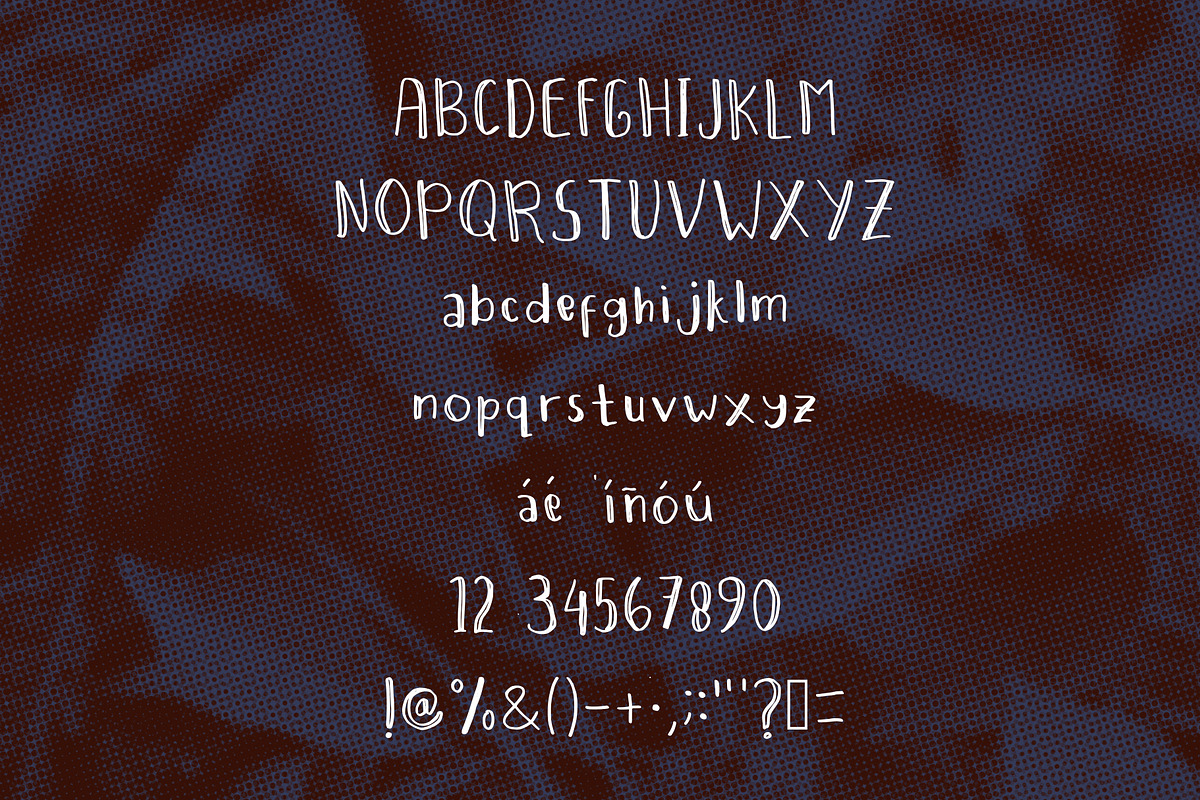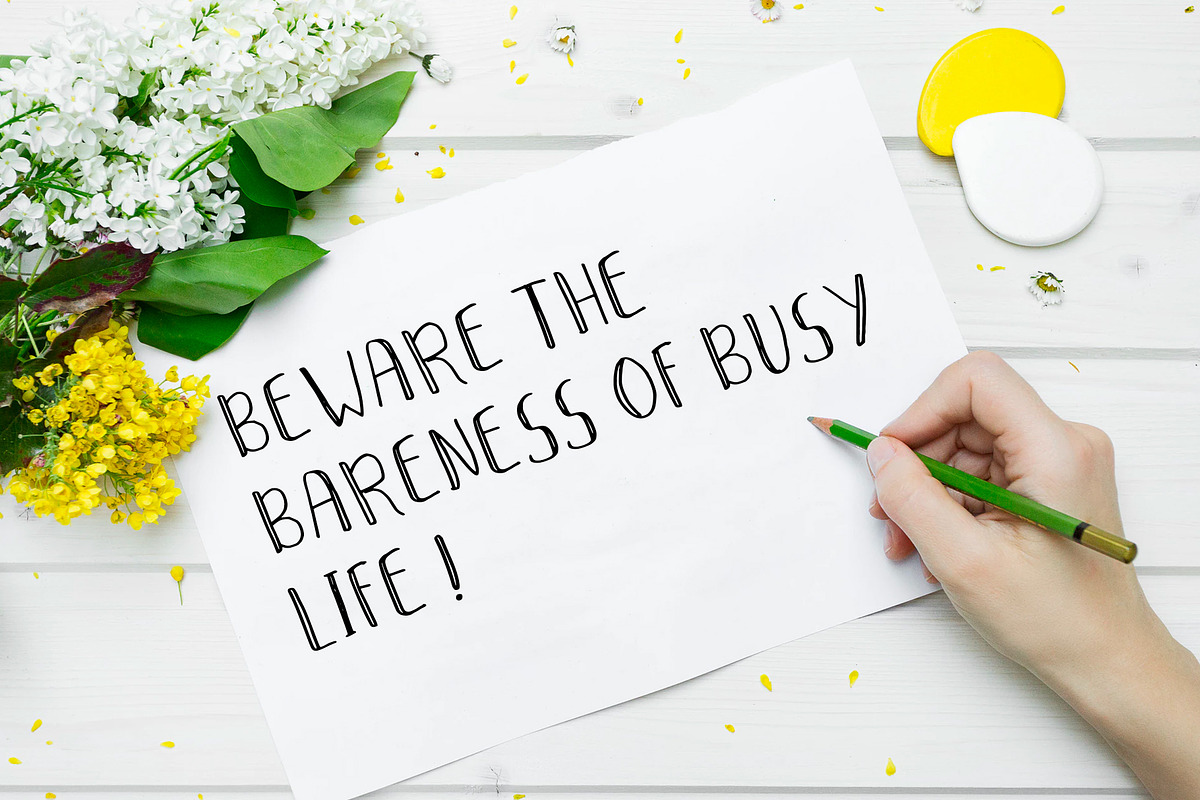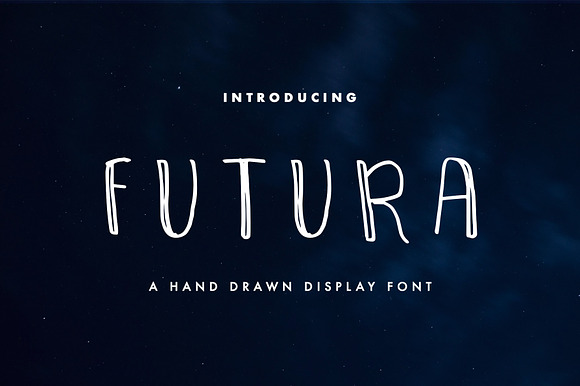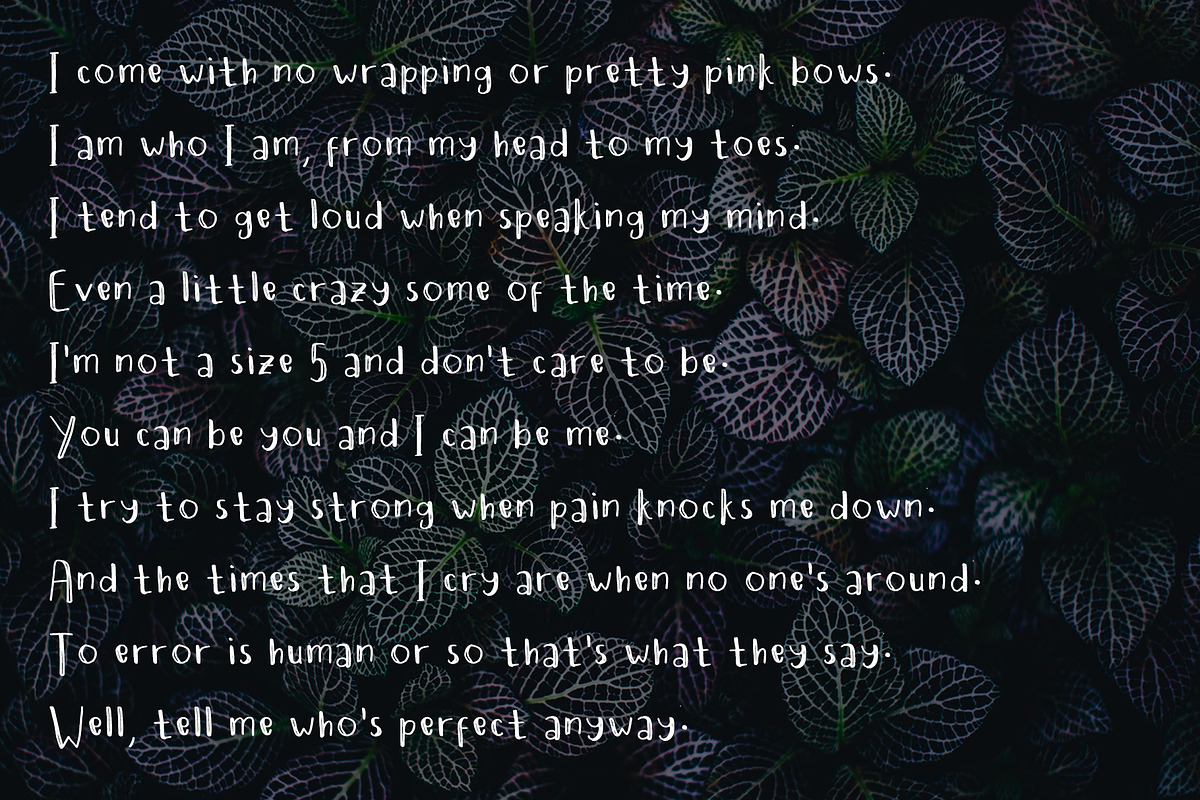
Futura Font Suite for Book & Text
Sans serif hand-drawn display font called Futura was designed for modern, classic, feminine, unique and other style also fit for Kids stories, books, poems and other long text
Futura Font Suite for Book & Text by NadaNora fits naturally into Branding, posters, packaging, typography.